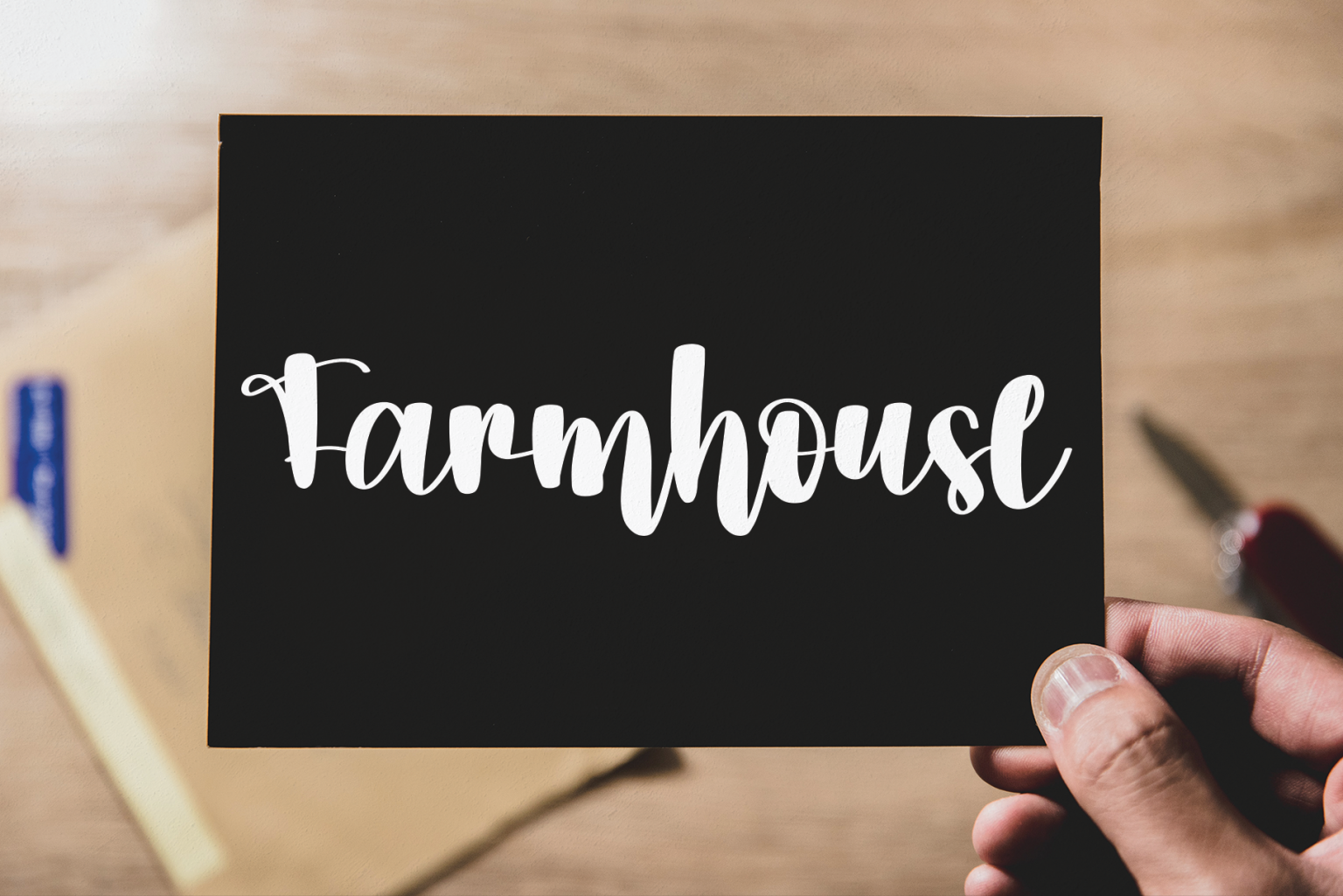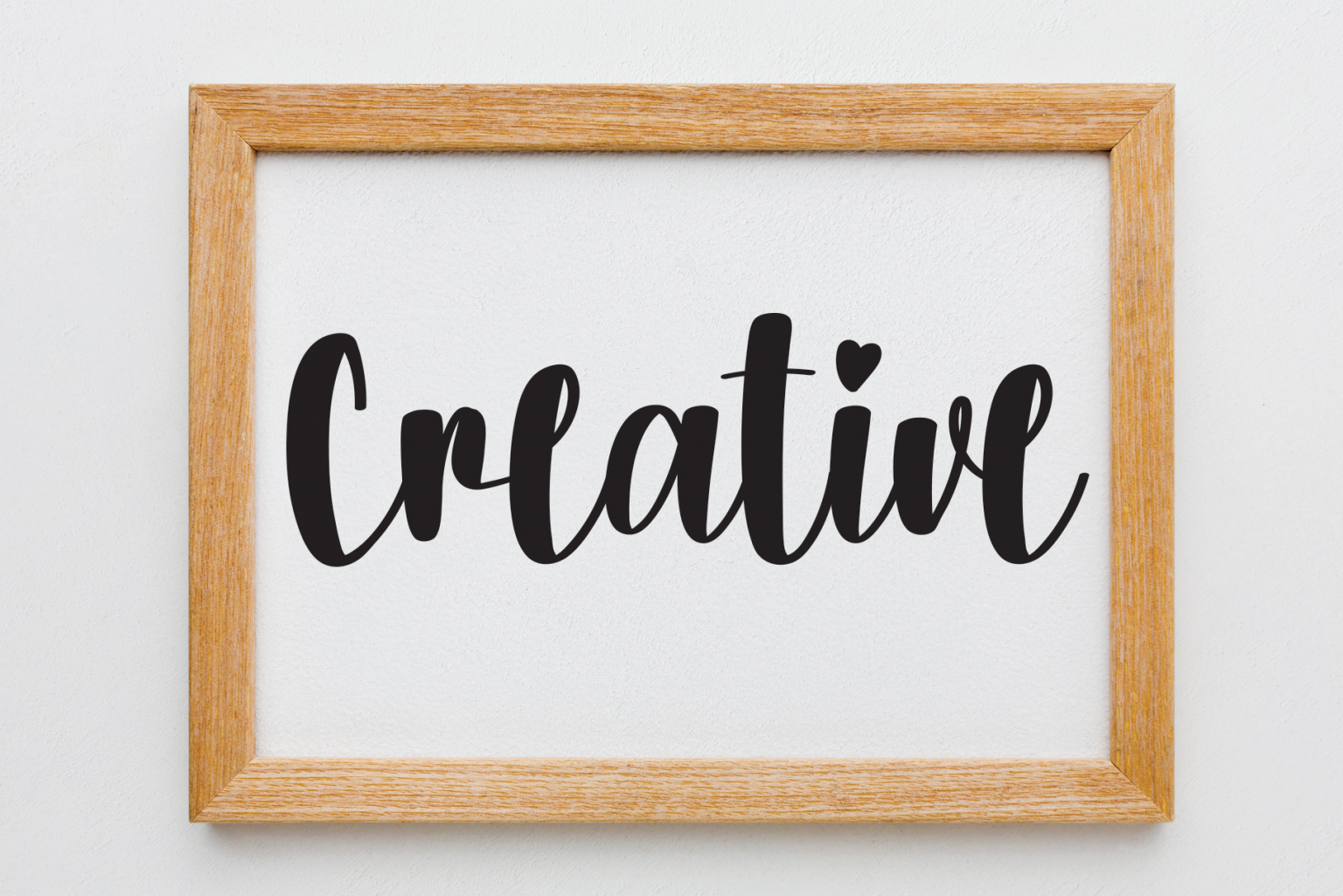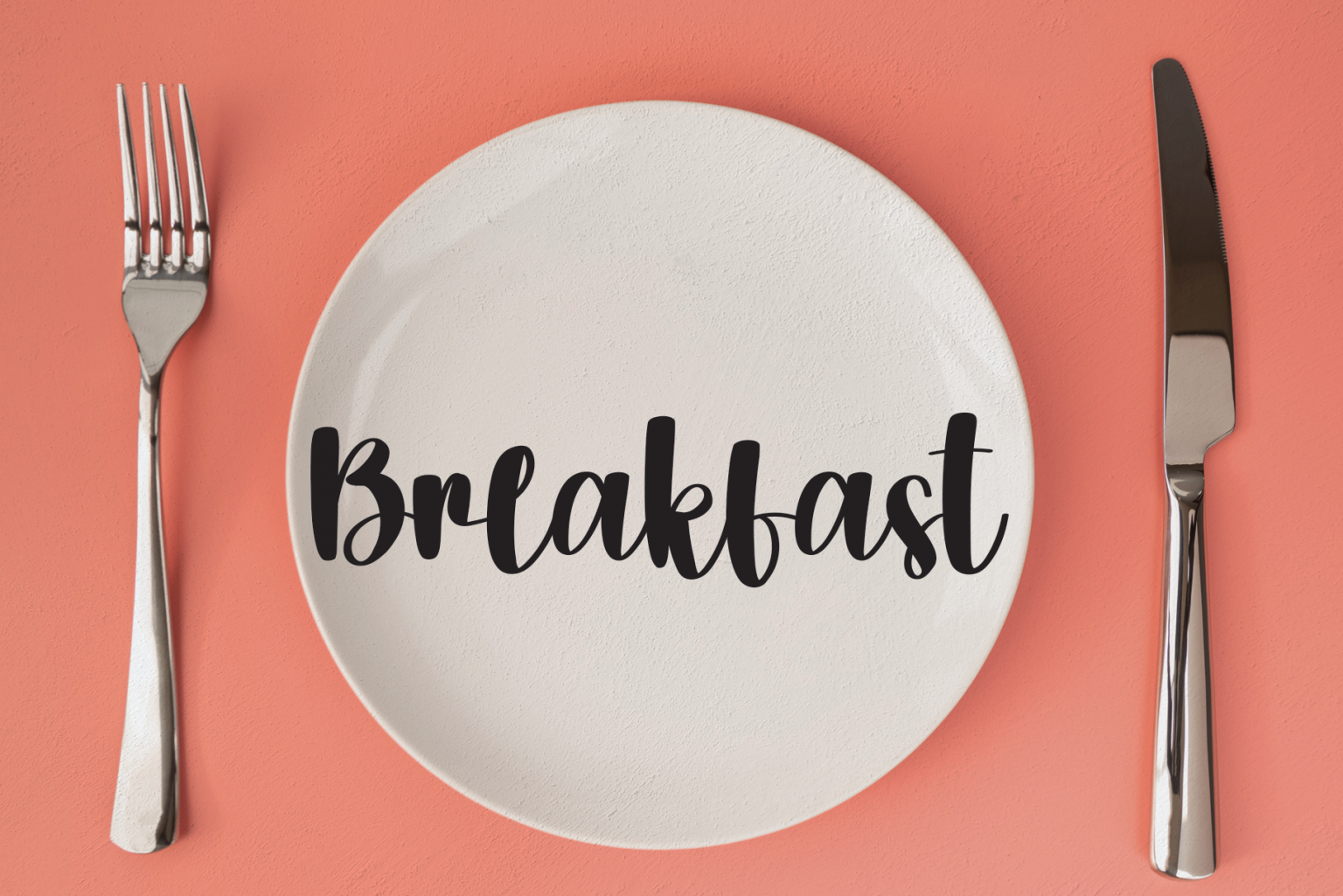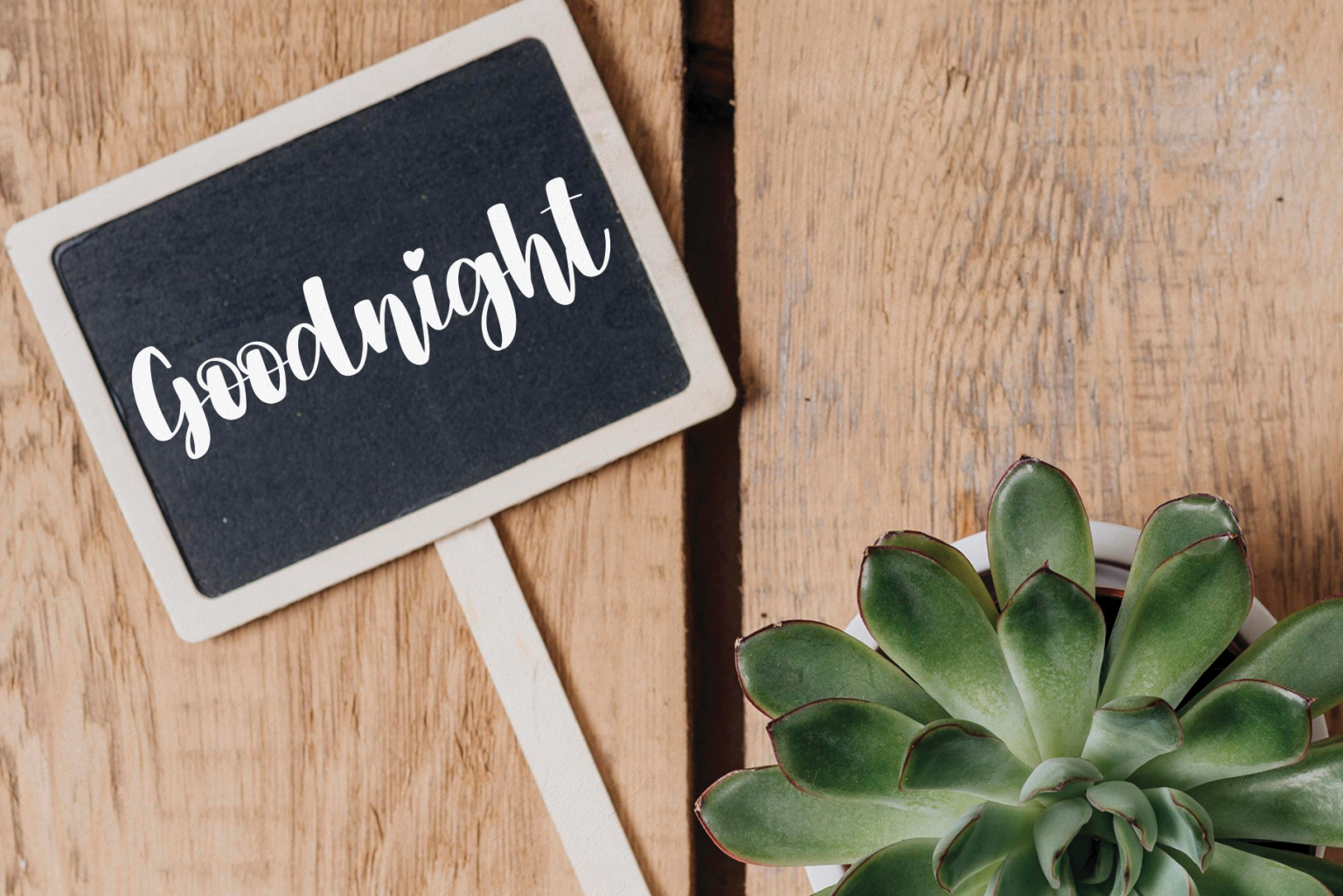
Amsterdam Typeface
Amsterdam Script Font
This is a chic, refined script font that emanates sophistication and elegance. Its stylish alternates and ligatures make this font the perfect match for any project.
the latest style letters are perfect for wall displays, wedding invitations, social media post logos, advertisements, product packaging, product designs, labels, photography, watermarks, invitations, stationery, and any project that requires taste handwriting.